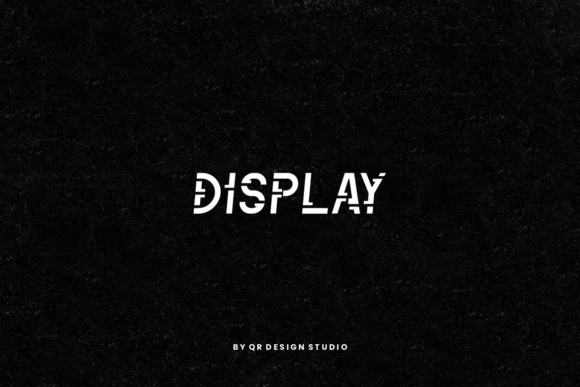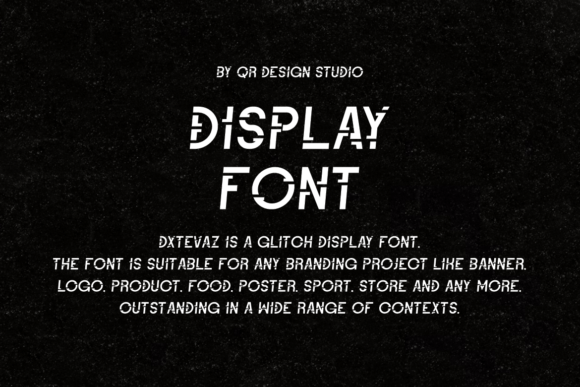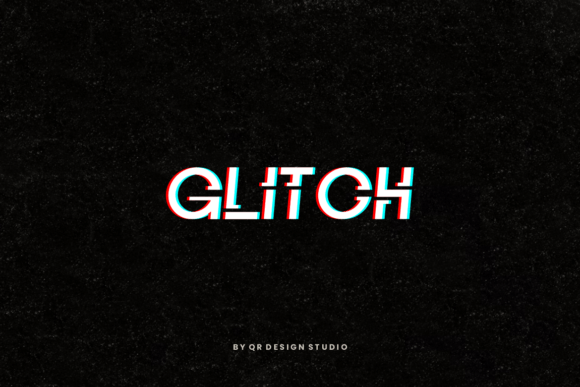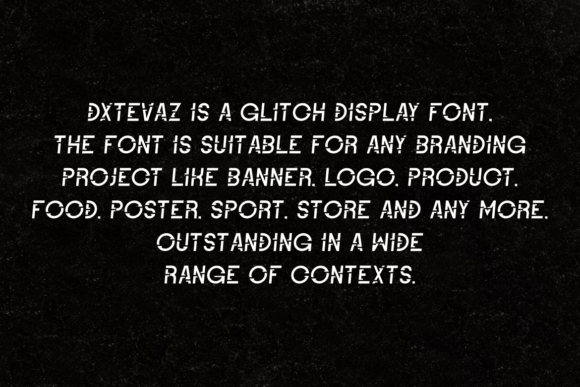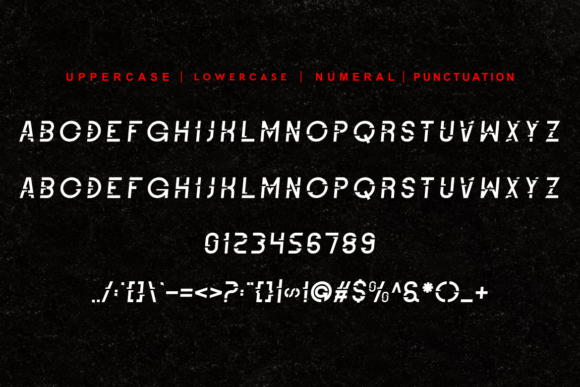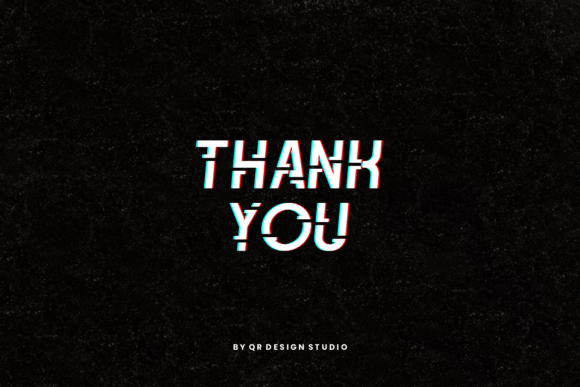
Discover the Unique Charm of Dxtevaz Font: Elevate Your Designs to New Heights
In the vast world of typography, few fonts manage to capture the essence of creativity and uniqueness as effectively as the Dxtevaz Font. This incredibly decorative font has been masterfully designed to become a true favorite among designers, crafters, and anyone looking to bring their creative ideas to the highest level. With its distinctive charm and versatile application, Dxtevaz is not just a font; it’s a tool that can transform your designs, making them stand out in a crowded digital landscape.
The Design and Features of Dxtevaz Font
At first glance, Dxtevaz Font presents itself with an air of elegance and sophistication. Its design is meticulously crafted, with intricate details that give it a unique personality. The font boasts a decorative style that can add a touch of class and refinement to any project. Whether you’re working on a logo, a website, a poster, or any other design material, Dxtevaz can bring a level of sophistication that’s hard to achieve with more standard fonts.
One of the key features of Dxtevaz Font is its versatility. It can be used across a wide range of projects, from digital media to print materials. This versatility is a testament to its design, which manages to be both eye-catching and legible. The font comes in various weights and styles, allowing designers to experiment with different looks and tones. This flexibility makes Dxtevaz an excellent choice for designers who like to push the boundaries of creativity.
Why Choose Dxtevaz Font?
So, why should you choose Dxtevaz Font for your next project? The answer lies in its ability to elevate your designs. In a world where standing out is increasingly difficult, Dxtevaz offers a breath of fresh air. Its unique design ensures that your work will catch the eye, making it perfect for projects where you want to leave a lasting impression.
Moreover, Dxtevaz Font is incredibly easy to use. Despite its complex design, it is optimized for use in various software and applications, ensuring that you can integrate it seamlessly into your workflow. This ease of use, combined with its stunning appearance, makes Dxtevaz a favorite among both beginners and seasoned designers.
Applications of Dxtevaz Font
The applications of Dxtevaz Font are vast and varied. Here are a few examples of how you can use this versatile font:
- Branding and Logos: Use Dxtevaz to create a memorable logo that sets your brand apart.
- Web Design: Add a touch of elegance to your website with Dxtevaz, making it more engaging for visitors.
- Print Materials: From brochures to posters, Dxtevaz can enhance the visual appeal of your print materials.
- Social Media Graphics: Stand out on social media with eye-catching graphics that feature Dxtevaz Font.
Tips for Getting the Most Out of Dxtevaz Font
To truly leverage the potential of Dxtevaz Font, consider the following tips:
- Experiment with Sizes: Dxtevaz looks great in both large and small sizes, so don’t be afraid to experiment to find the perfect fit for your project.
- Play with Colors: The font’s design lends itself well to creative color choices. Try different colors to see what works best for your design.
- Mix and Match: Combine Dxtevaz with other fonts to create interesting contrasts and add depth to your designs.
Dxtevaz Font is an incredibly unique decorative font that has the potential to bring each of your creative ideas to the highest level. Its masterful design, versatility, and ease of use make it an excellent choice for designers and crafters looking to elevate their projects. Whether you’re working on a professional project or a personal craft, Dxtevaz can help you achieve the look you’re aiming for. With its distinctive charm and wide range of applications, Dxtevaz Font is sure to become a favorite in your collection.